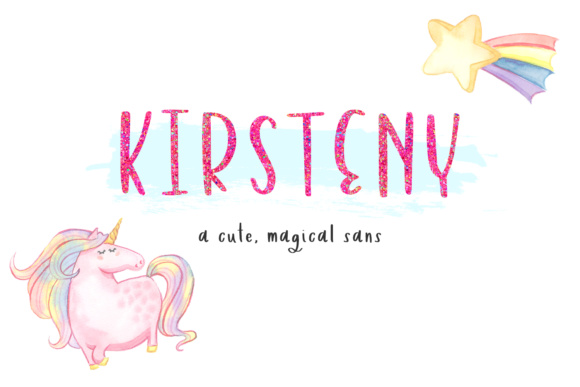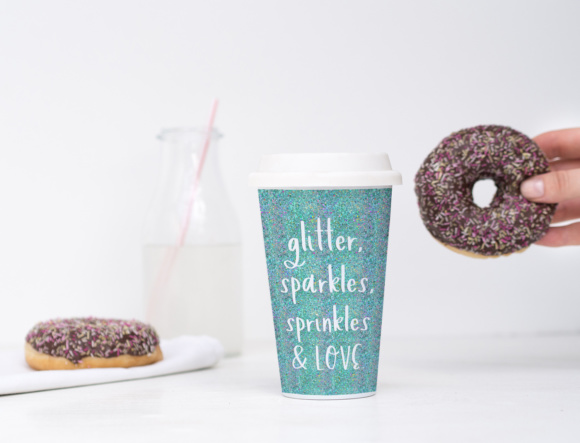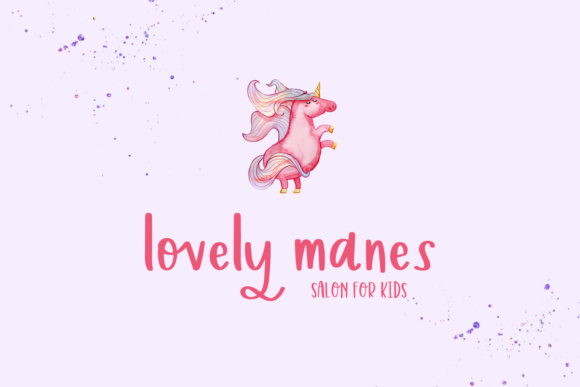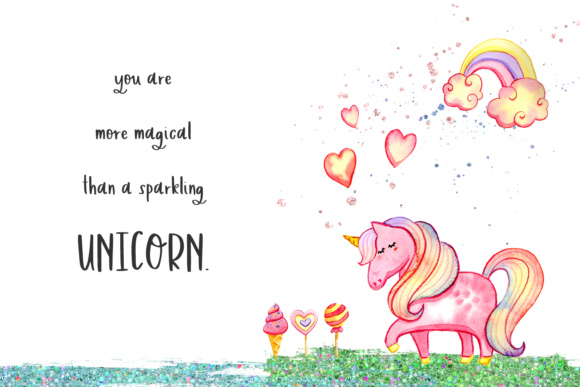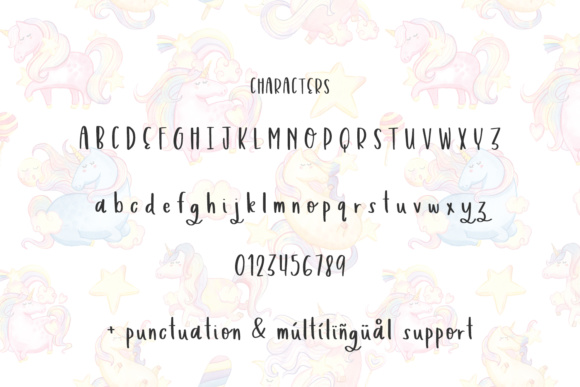
Kirsteny Font
Kirsteny is an adorable, handwritten font full of spunk and personality; this cutesy sans serif font is a great way to give your projects an approachable yet fantastical feel!